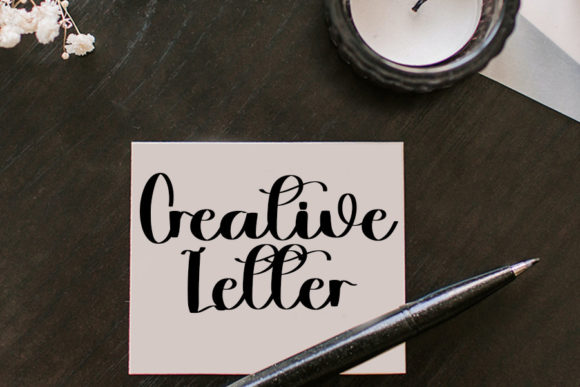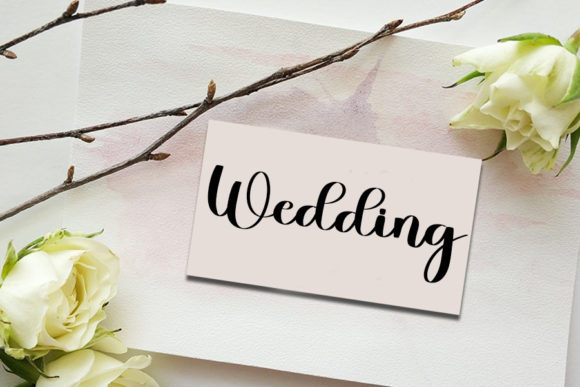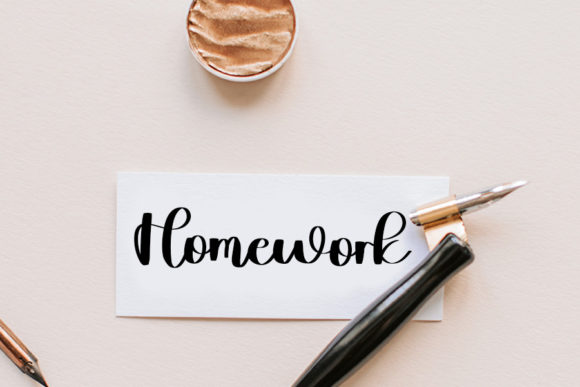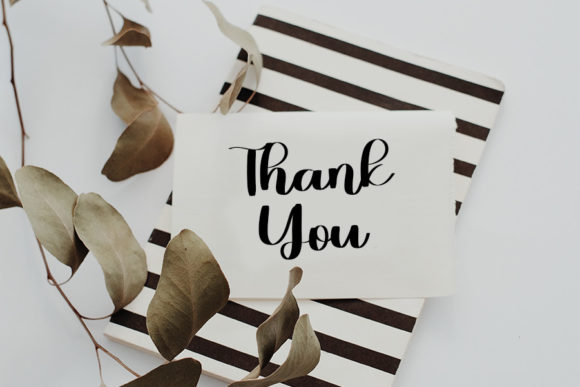
Hello Baby Font: Elevate Your Designs with Elegance and Sophistication
In the world of typography, fonts play a crucial role in conveying the tone and personality of a design. For designers and crafters seeking a font that exudes elegance, sophistication, and modernity, Hello Baby Font is an excellent choice. This beautiful script font has gained popularity for its classy and refined look, making it perfect for a wide range of design applications.
What is Hello Baby Font?
Hello Baby Font is a stunning script font that boasts a classy, elegant, and modern aesthetic. Its refined design makes it an ideal choice for creating visually appealing logos, branding materials, invitations, stationery, wedding designs, social media posts, and more. The font’s versatility and flexibility allow designers to experiment with various design projects, from traditional to digital.
Key Features of Hello Baby Font
• Elegant and Refined Design: Hello Baby Font features a beautiful, flowing script design that adds a touch of sophistication to any project.
• Classy and Modern Look: The font’s modern aesthetic makes it perfect for designers seeking a contemporary look that will elevate their designs.
• Versatile and Flexible: Hello Baby Font can be used for a wide range of design applications, from logos and branding to social media posts and wedding designs.
• Easy to Read: Despite its elegant design, Hello Baby Font remains easy to read, making it perfect for body text and captions.
Design Applications for Hello Baby Font
Hello Baby Font is an excellent choice for various design projects, including:
• Logos and Branding: Create a lasting impression with a custom logo that showcases your brand’s personality and style.
• Invitations and Stationery: Add a touch of elegance to your invitations, greeting cards, and stationery with Hello Baby Font.
• Wedding Designs: Make your wedding designs truly special with this beautiful script font, perfect for wedding invitations, programs, and more.
• Social Media Posts: Elevate your social media presence with eye-catching posts and graphics featuring Hello Baby Font.
Tips for Using Hello Baby Font
To get the most out of Hello Baby Font, consider the following tips:
• Pair with Complementary Fonts: Combine Hello Baby Font with complementary fonts to create visual interest and hierarchy in your designs.
• Experiment with Colors: Play with different color schemes to find the perfect match for your design and Hello Baby Font.
• Use for Headings and Titles: Take advantage of Hello Baby Font’s elegant design by using it for headings and titles, and pairing it with a simpler font for body text.